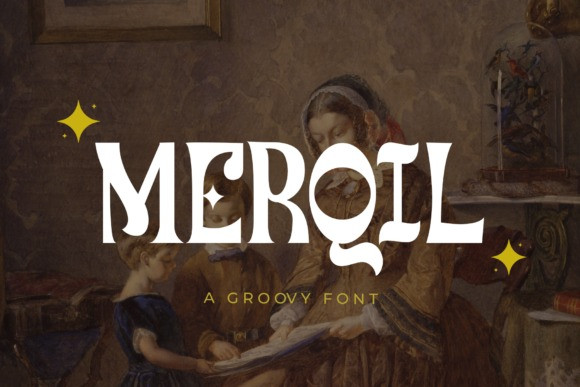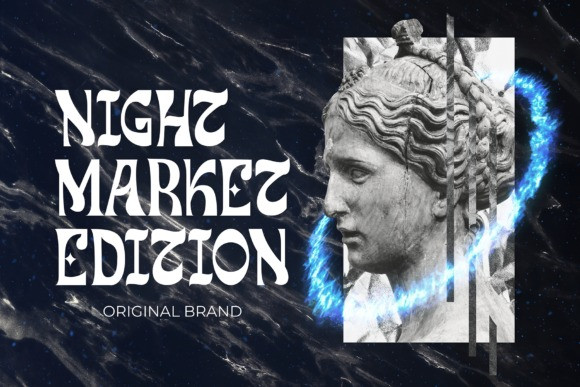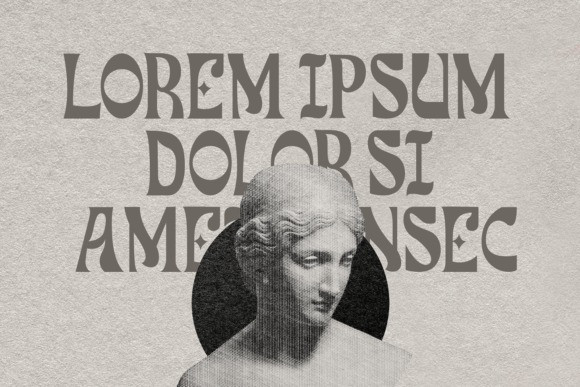
Merqil Font
Merqil is a cool, retro and neat display font. It is the best choice for creating eye catching logos, branding and quotes. Every letter has a unique and beautiful touch, which will make your design come alive!